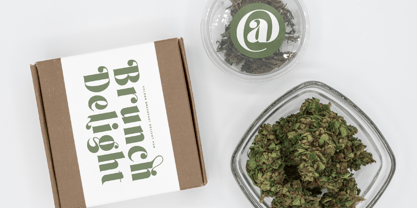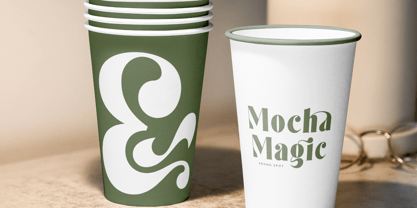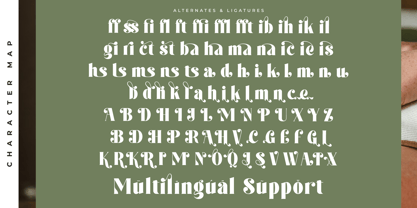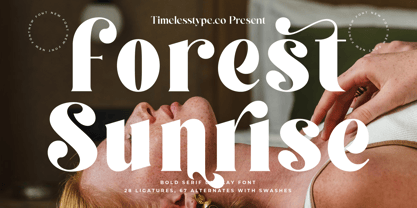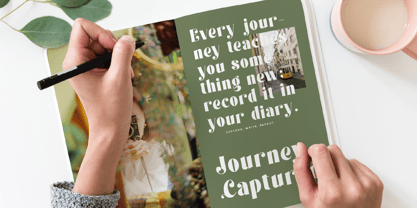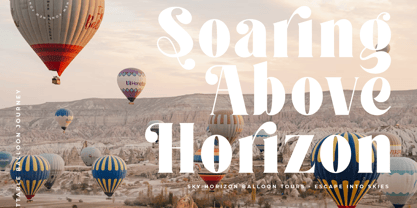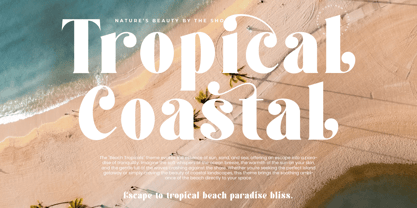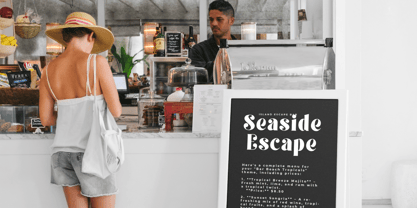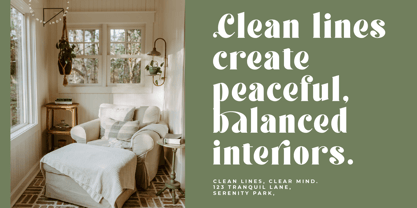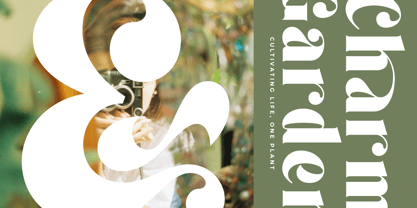
Forest Sunrise
by Timelesstype Studio
The Forest Sunrise Font Family was designed by Heru Utama Putra and published by Timelesstype Studio. Forest Sunrise contains 2 styles and family package options. More about this family
Forest Sunrise - Bold Serif Display Font , from Timelesstype, Suitable for any projects such as: logos, branding projects, homeware designs, product packaging, mugs, quotes, posters, shopping bags, t-shirts, book covers, name card, invitation cards, greeting cards, label, photography, watermark, special events, and all your other luxury and beautiful projects that need a Luxury Serif taste.